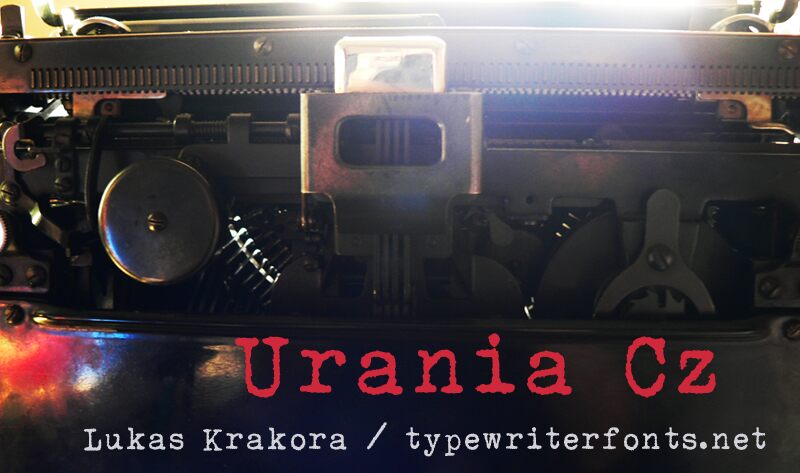
Urania Czech font is based on typeface of an old German Urania typewriter with Czech and other accents. If you want to use this font commercially, please contact me at krraaa@yahoo.com to get the information about pricing.
This font was made of old URANIA typewriter and is free for non-commercial use. if you want to use this font commercially, please contact me at: krraaa@yahoo.com